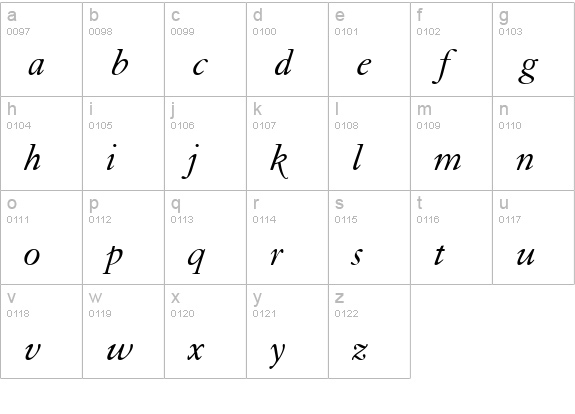
Tiasco SSi Italic is a distinctive, italic variant in the Tiasco typeface family \xE2\x80\x94 well suited to design and typography projects.
Tiasco SSi Italic is a stunning font that combines elegance and versatility. Its graceful slant and subtle curves lend a unique touch to any project, making it perfect for both professional and creative endeavors. The italic style adds a touch of sophistication and adds a dynamic flair to any text. With its intricate details and refined design, Tiasco SSi Italic stands out from the crowd, making a lasting impression on readers. The font's clean lines and balanced proportions make it easy to read, ensuring that your message is conveyed with clarity and impact. One of the best features of Tiasco SSi Italic is that it is freely available to download at FontsMarket.com. This means that you can enhance your designs without any extra cost, making it an ideal choice for designers, creators, and enthusiasts on a budget. Whether you're working on a logo, website, or any other design project, Tiasco SSi Italic offers a wide range of possibilities. Its versatility allows it to adapt to different styles and themes, making it suitable for a variety of applications. With Tiasco SSi Italic, you can effortlessly add a touch of elegance and sophistication to your designs. Its timeless appeal and contemporary charm make it a font that will never go out of style. So why wait? Download Tiasco SSi Italic for free at FontsMarket.com and elevate your designs to new heights.